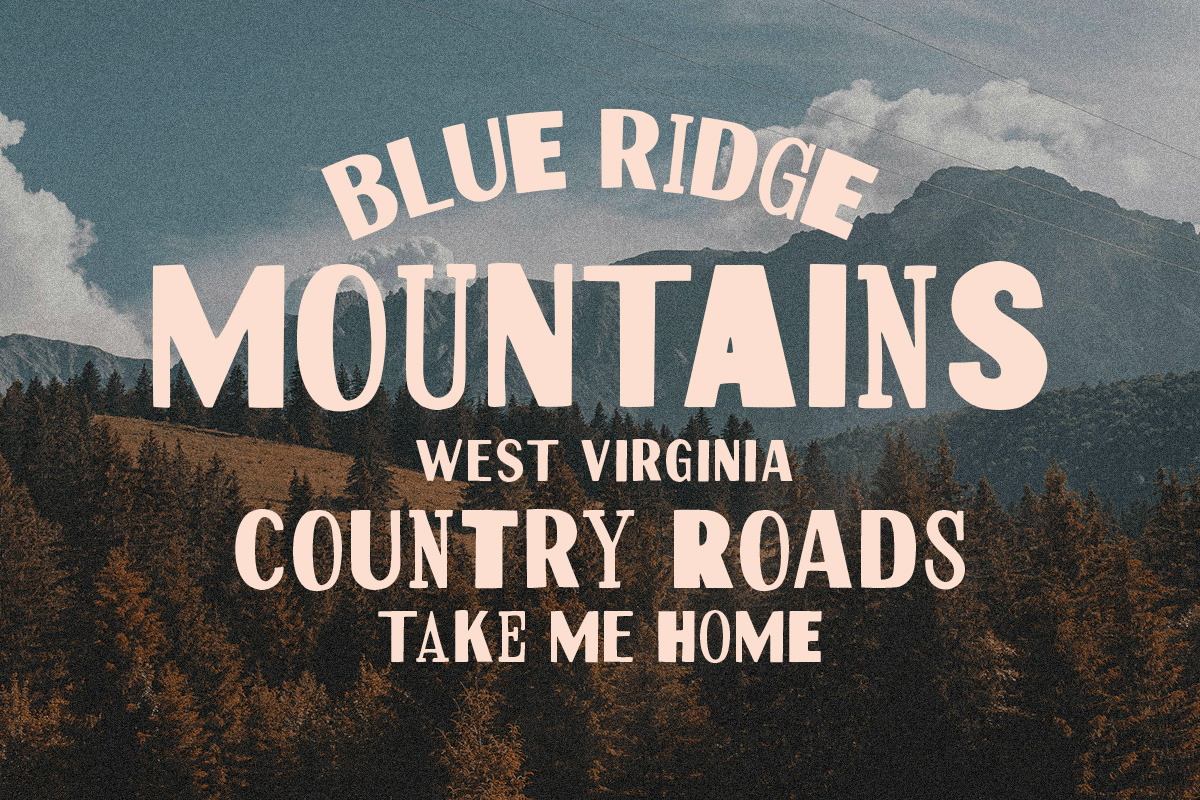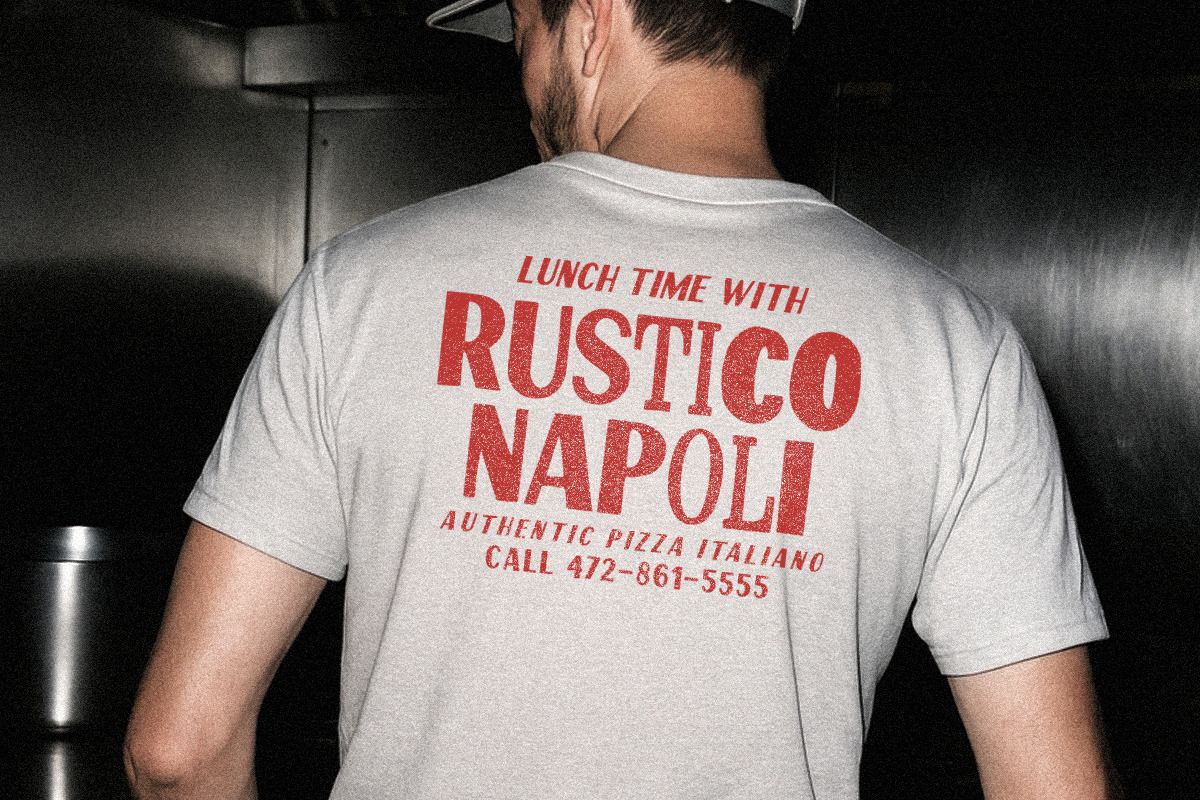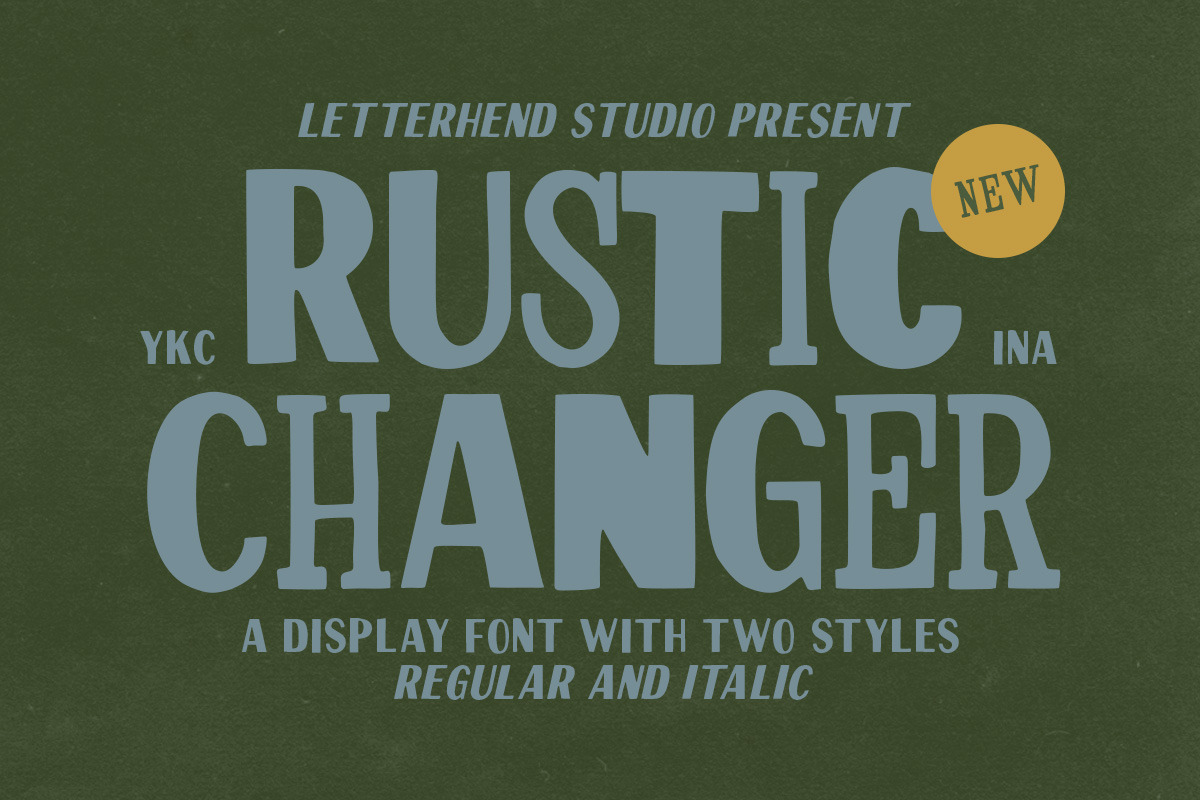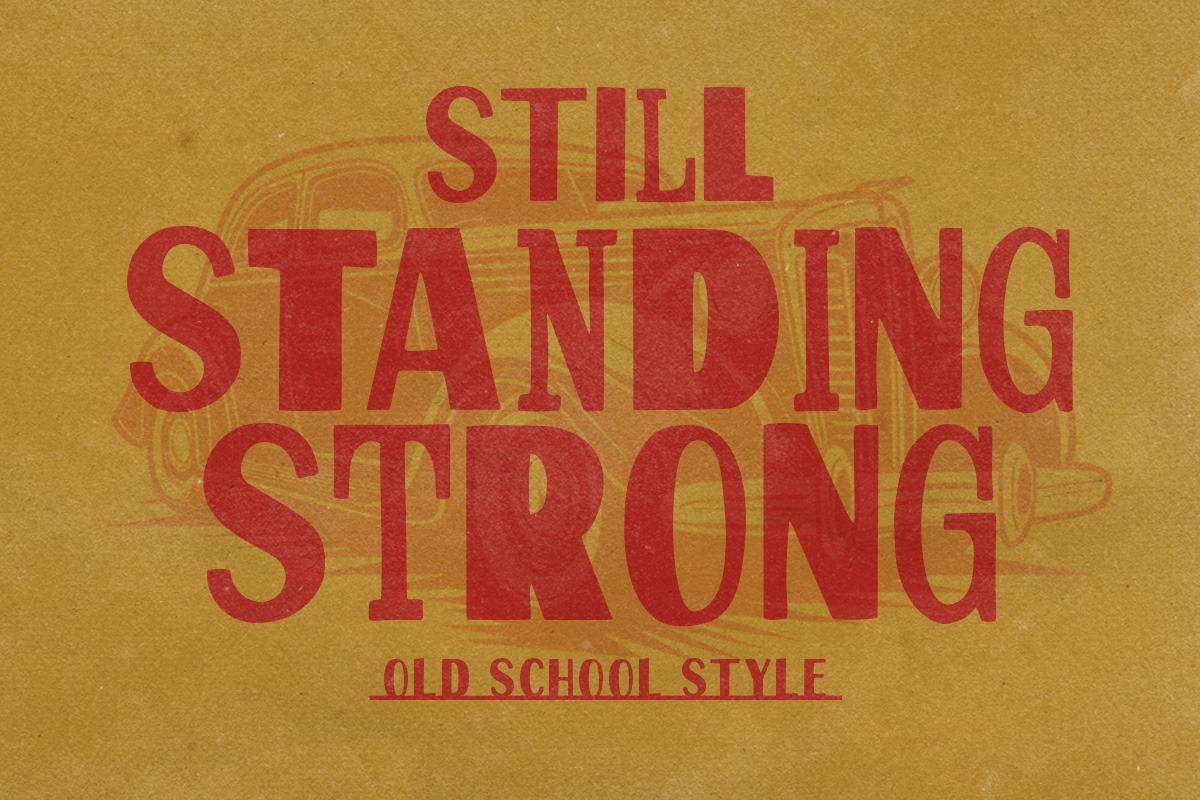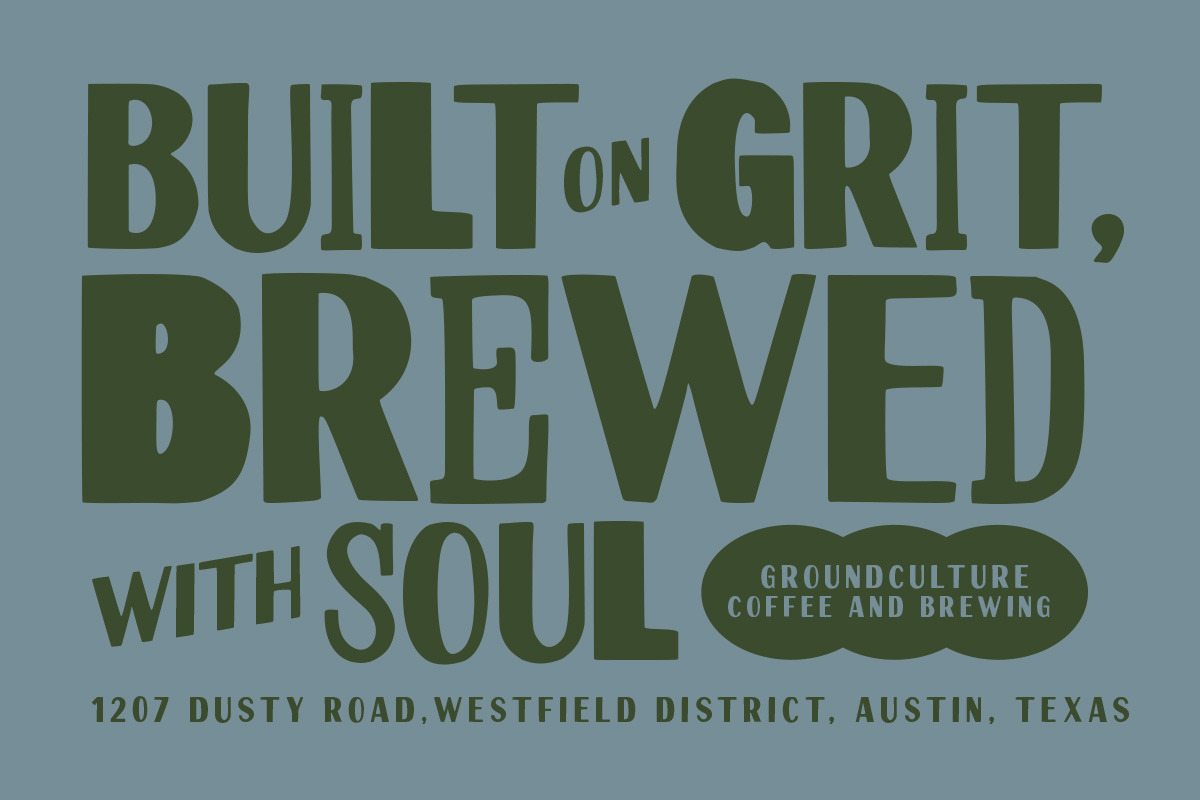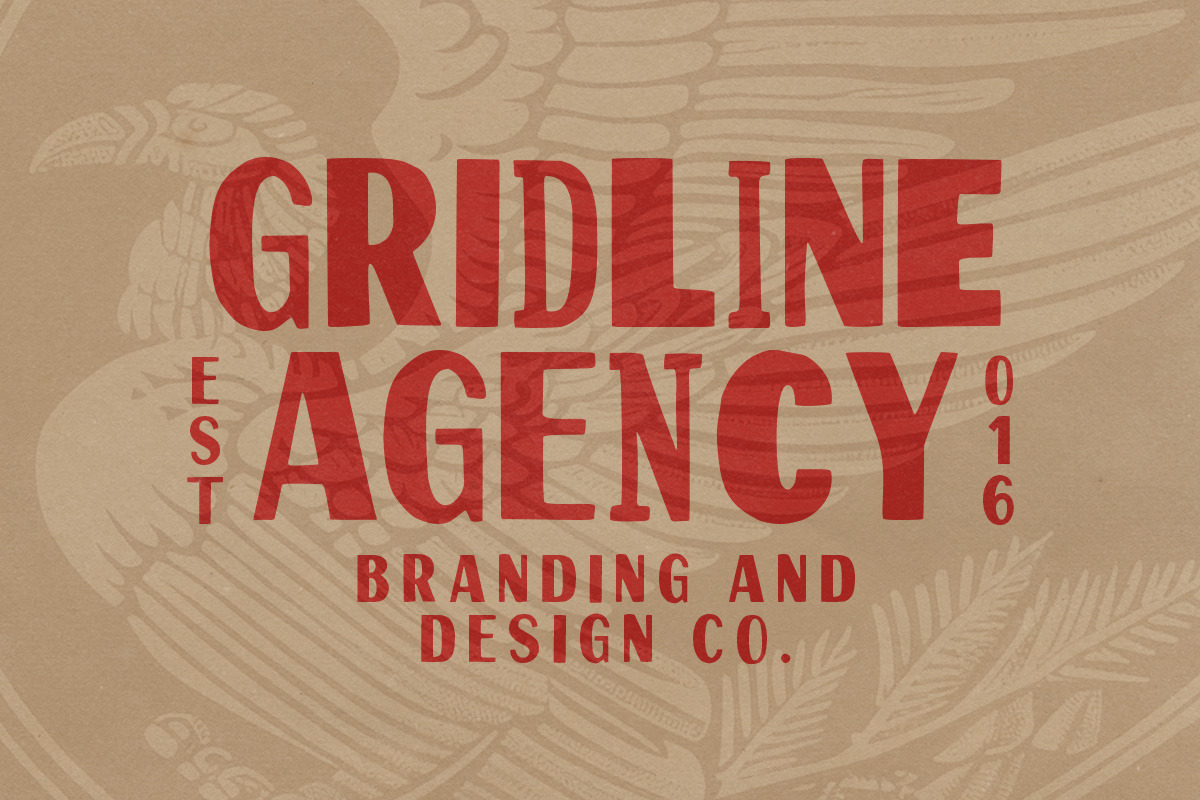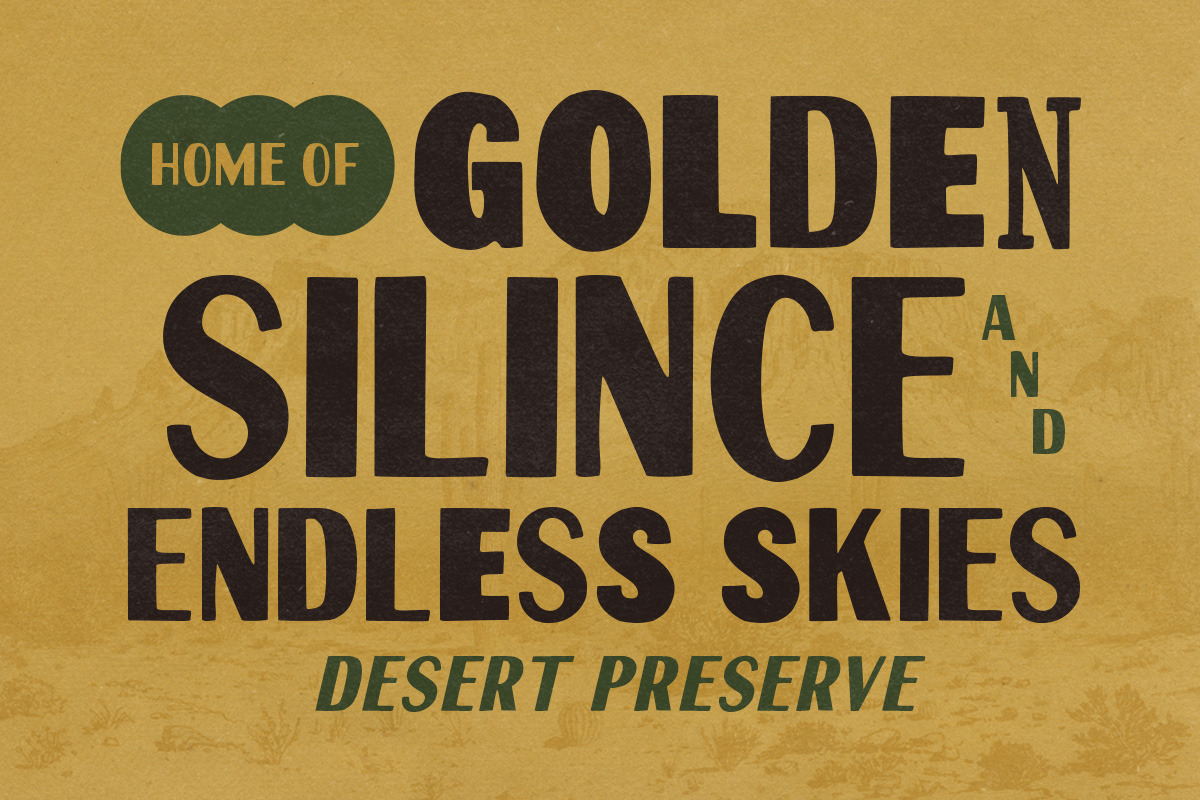
Rustic Changer Display Font
Rustic Changer a western display font, like old countryside signage painted by hand but refined for modern use. The letterforms are chunky, tall, and slightly quirky, giving strong readability while keeping a warm, handmade character. It's good for smoothly for headlines, packaging, posters, menus, signage, and branding that wants to feel grounded, honest, and timeless.